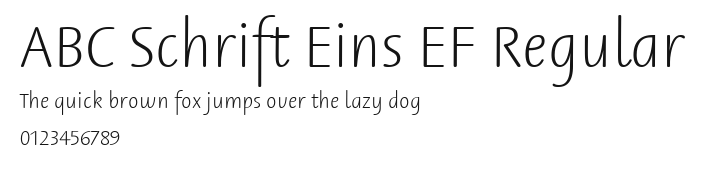
About ABC Schrift Eins EF Regular.ttf
ABC Schrift Eins EF Regular.ttf is a modern, elegant sans-serif font designed for ultimate readability and visual harmony. Perfect for branding, headlines, web design, and print materials.